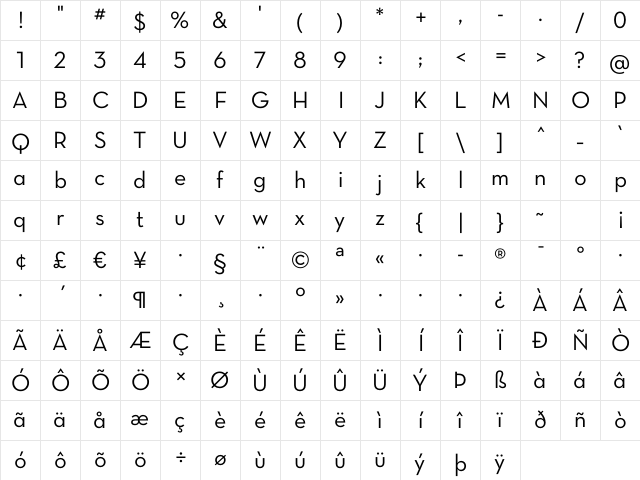
Neutra Text TF Alt Regular
Designer: Christian Schwartz
Design Context for Neutra Text TF Alt
Neutra Text TF Alt is a composed and adaptable typeface that performs quietly and consistently across a wide range of design contexts.